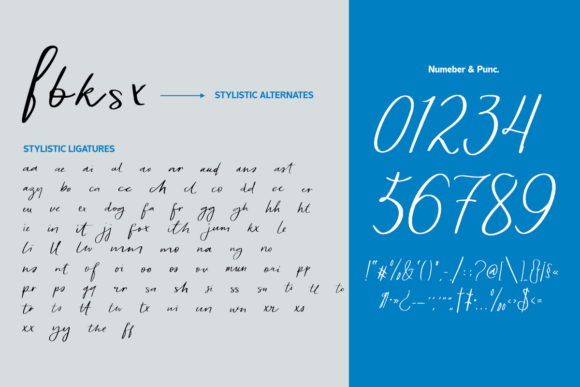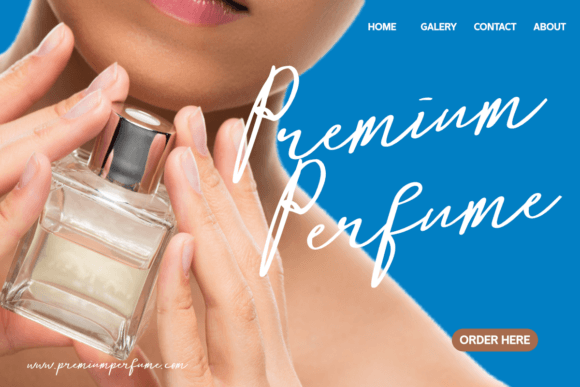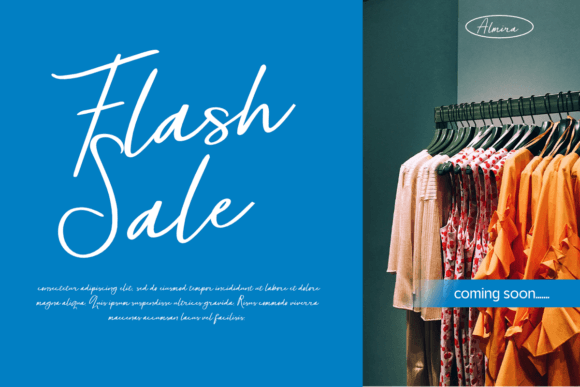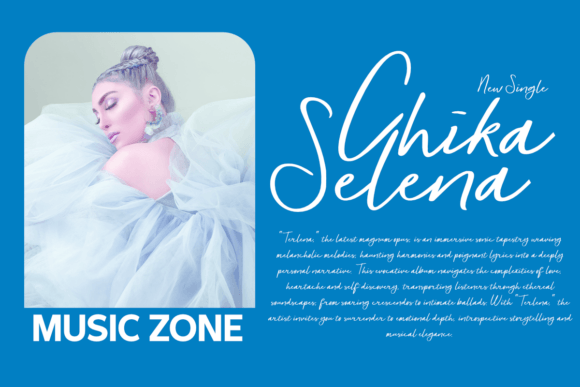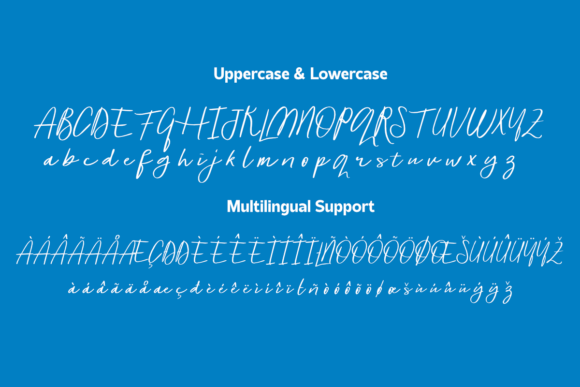
Discover the Allure of Beauty Indramayu Font
Have you ever been browsing through a beautifully designed wedding invitation, only to be captivated by the elegant handwriting that perfectly captures the essence of the special occasion? That’s the magic of typography, and for designers, the quest for the perfect font can be a never-ending journey. But what if we told you that there’s a contemporary handwritten creation that exudes an unmatched sense of sophistication and luxury?
Meet Beauty Indramayu Font, a masterpiece designed to bring an enchanting charm to your brand identity, wedding invites, and social media content. With its remarkable design, this font is the perfect addition to any designer’s toolkit, offering a unique touch that sets your work apart from the rest.
- Unique Characteristics: The font features a unique blend of traditional and modern elements, with intricate details and ornaments that evoke a sense of cultural heritage.
Beauty Indramayu Font Review
I recently had the chance to work with the Beauty Indramayu Font, and I must say it’s a unique addition to any design project. ✨ One of the things that stands out is its cultural significance, drawing inspiration from the traditional fonts of Indramayu, a regency in Indonesia. This attention to cultural heritage is refreshing and adds a touch of authenticity to any design.
Another advantage is its versatility. ✨ The font can be used in a variety of settings, from logos to signage, and even in body text. It’s also available in multiple weights and styles, making it easy to adapt to different design needs.
However, there are some limitations to consider. ⚠️ One of the main drawbacks is its limited support for certain languages, which may be a concern for designers working on international projects. Additionally, the font may not be as readable at smaller sizes, which could impact its effectiveness in certain contexts.
Overall, I think the Beauty Indramayu Font is a great choice for designers looking to add a unique cultural touch to their work. While it may have some limitations, its versatility and cultural significance make it a worthwhile addition to any design arsenal.
- Unique cultural significance
- Versatile and adaptable
- Limited support for certain languages
- May not be readable at smaller sizes
Tips for Getting the Most Out of the Beauty Indramayu Font
Use the Beauty Indramayu font for titles, headings, and emphasis to add a touch of elegance and sophistication to your designs.
Experiment with different font sizes and styles to create visual interest and hierarchy in your designs.
The Beauty Indramayu font is ideal for:
Event branding and marketing materials
High-end product packaging and labeling
Can I use Beauty Indramayu for digital signage, or is it only suitable for print materials?
Beauty Indramayu can be used for both print and digital signage, but it’s recommended to use it in print materials where the font can be rendered at high resolutions. For digital signage, you may need to adjust the font size and rendering settings to ensure optimal legibility and clarity.